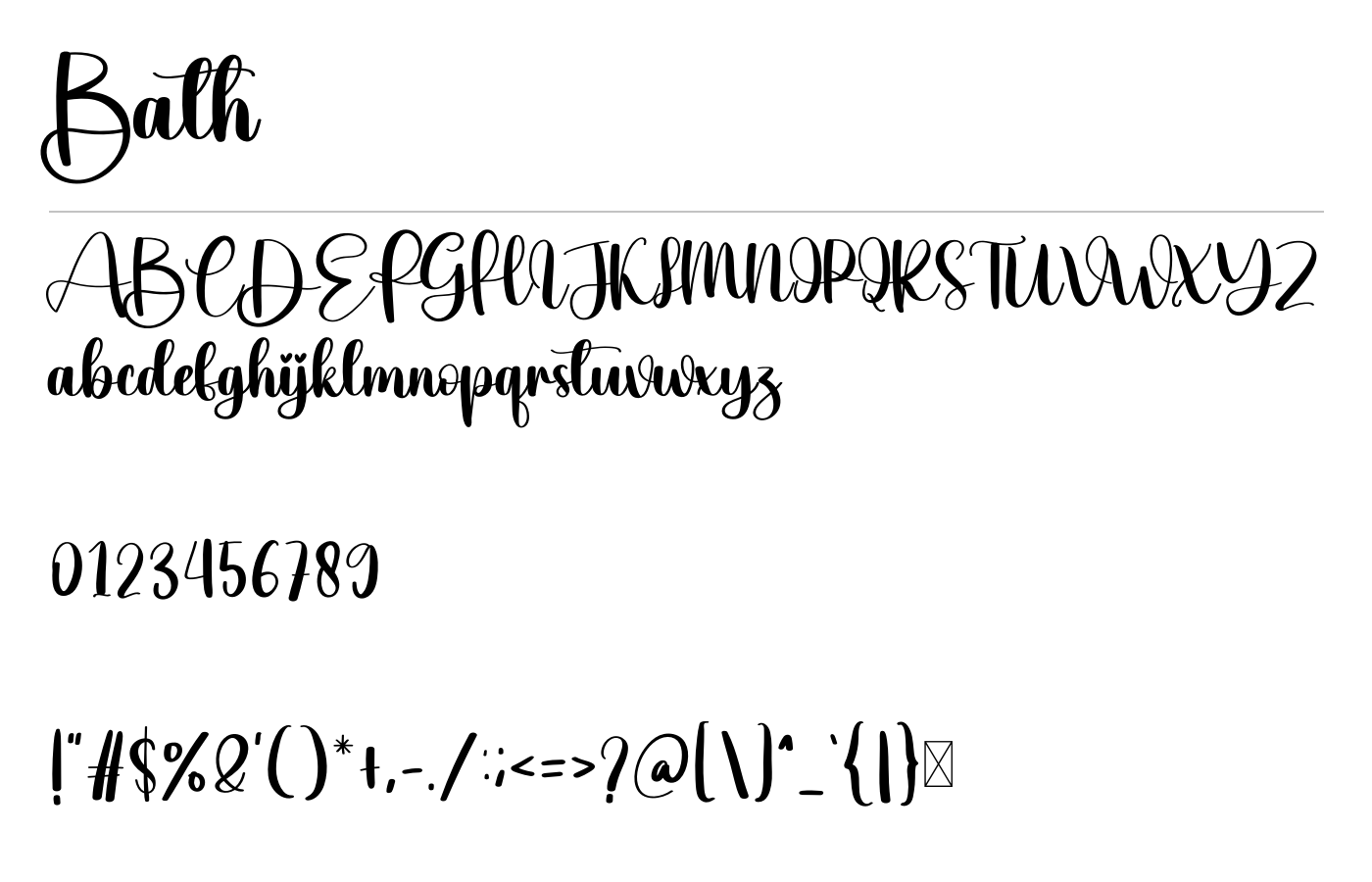
Bath is a charming script font with a playful and elegant style, featuring flowing, connected letterforms and a light to medium weight that balances softness with readability. Its tall x-height and varying stroke widths give it a lively, handcrafted feel, making it perfect for invitations, branding, and stylish social media graphics where a personal, creative touch is desired. This font shines in contexts that call for warmth and sophistication without losing a modern, approachable flair.
Bath Font
About Bath Font